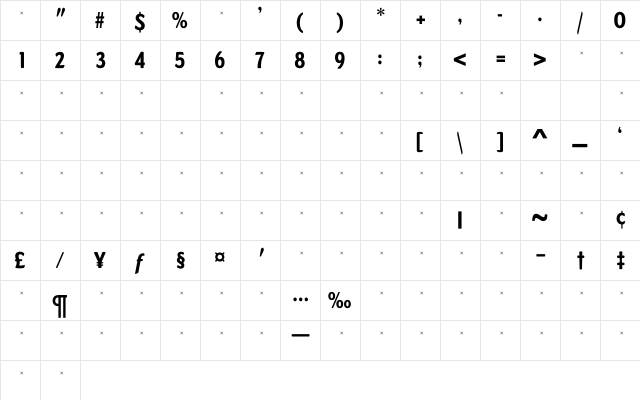
DundeeExtraBoldCondTab is a composed and adaptable typeface that performs quietly and consistently across a wide range of design contexts. Its bold stroke weight gives it real presence on the page. Its narrow stance lets it pack a punch even in space-constrained designs.